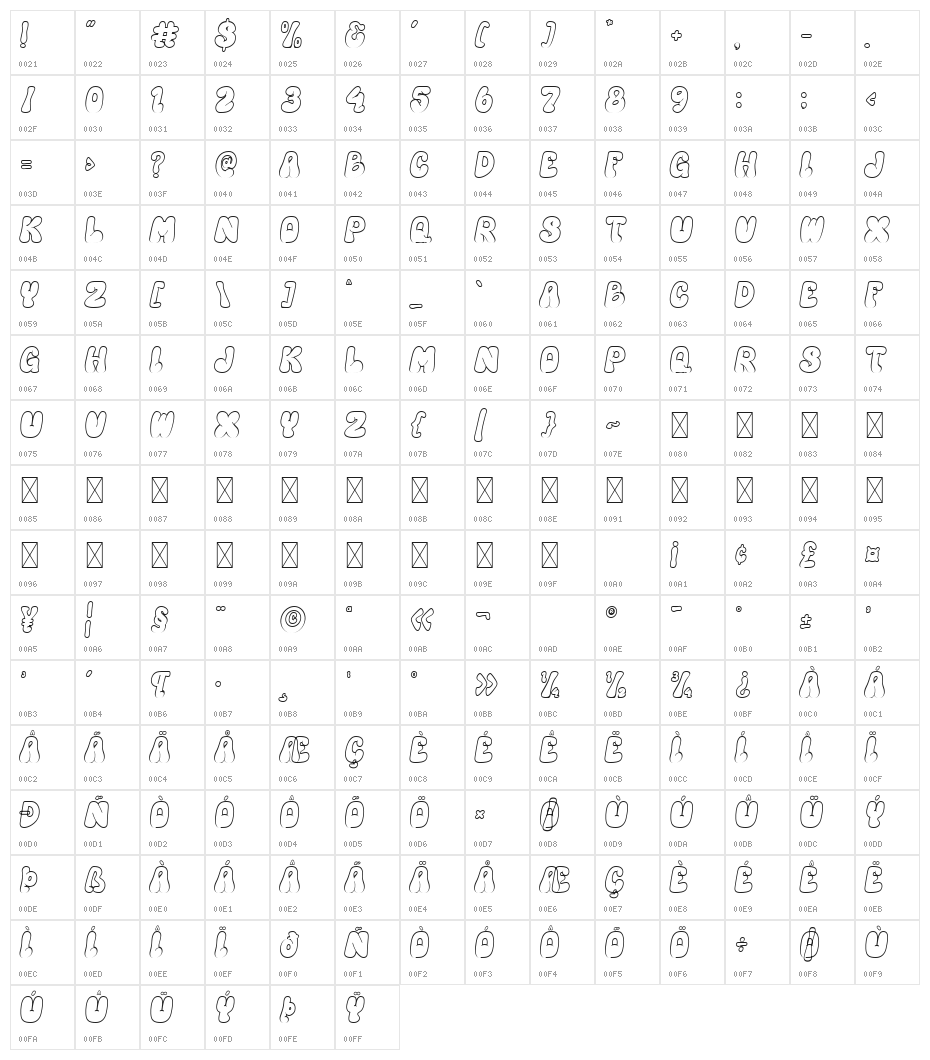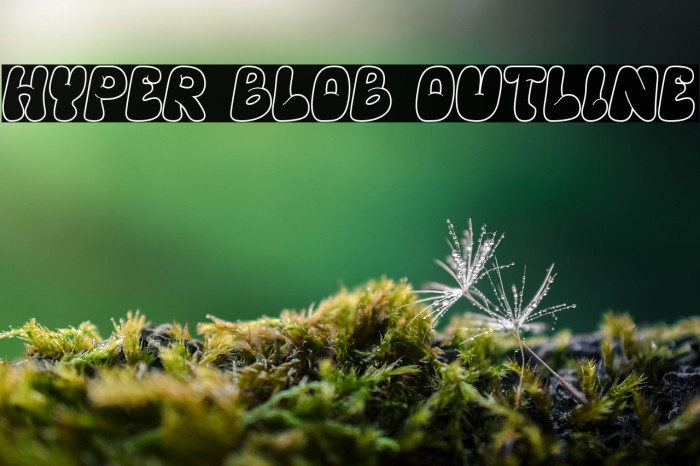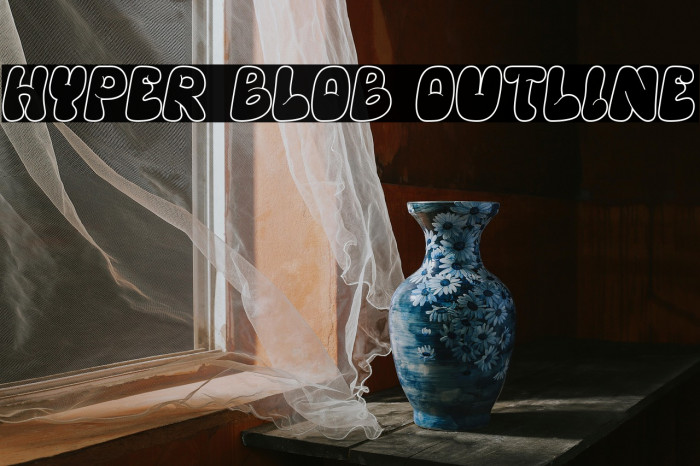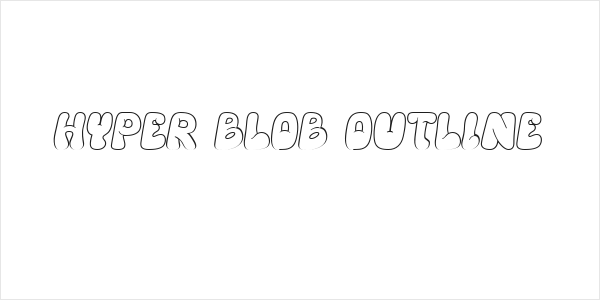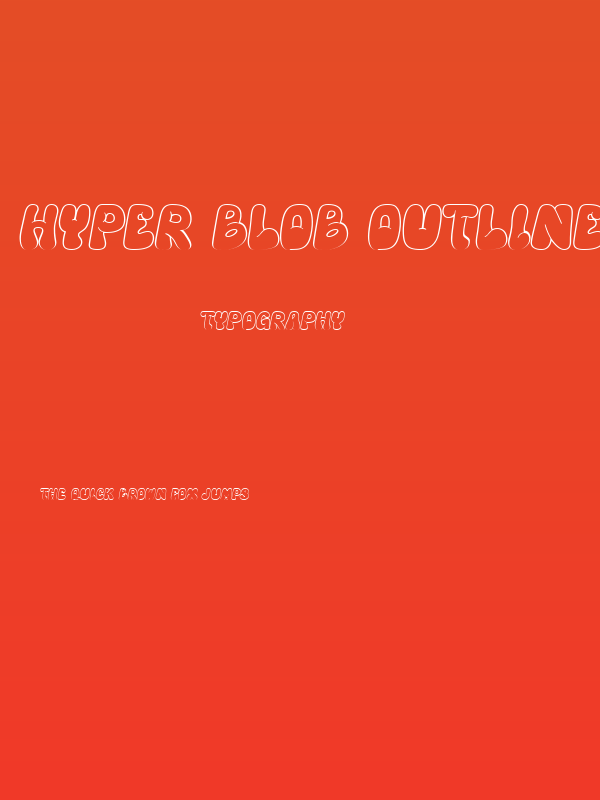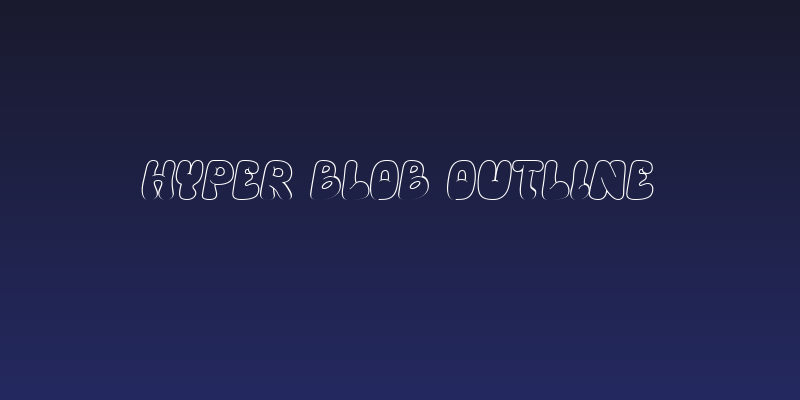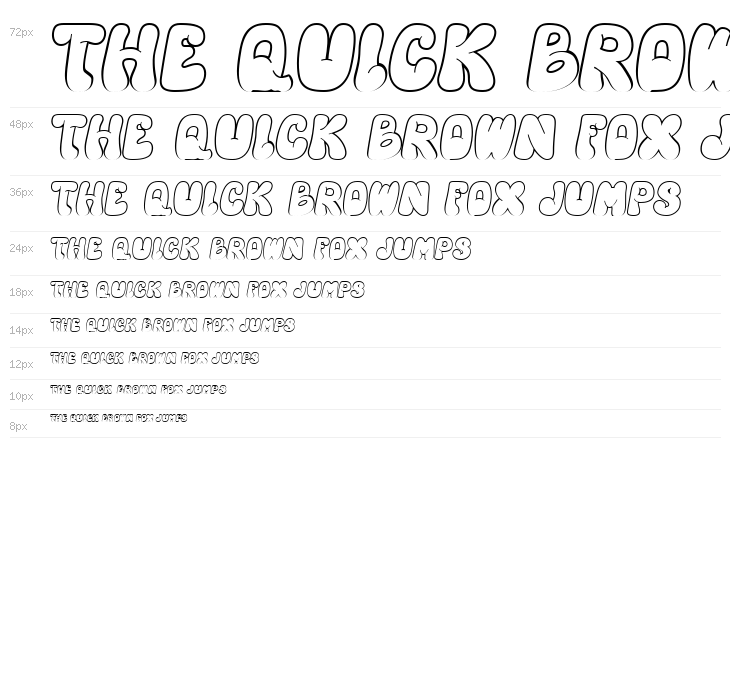
Hyper Blob Outline Font
Hyper Blob Outline Description
This playful and bold font features an outline style with a bubbly, inflated appearance. Each character is designed with a thick, rounded contour that gives it a three-dimensional look, reminiscent of balloons or inflatable objects. The font maintains a consistent thickness throughout, ensuring readability while adding a whimsical touch. Its unique style makes it stand out, perfect for creative and fun projects. The characters are evenly spaced, providing a balanced and harmonious look. This font is ideal for capturing attention and conveying a sense of fun and creativity.
| Proposed Projects | Ideal for children's books, party invitations, playful branding, and creative posters. |